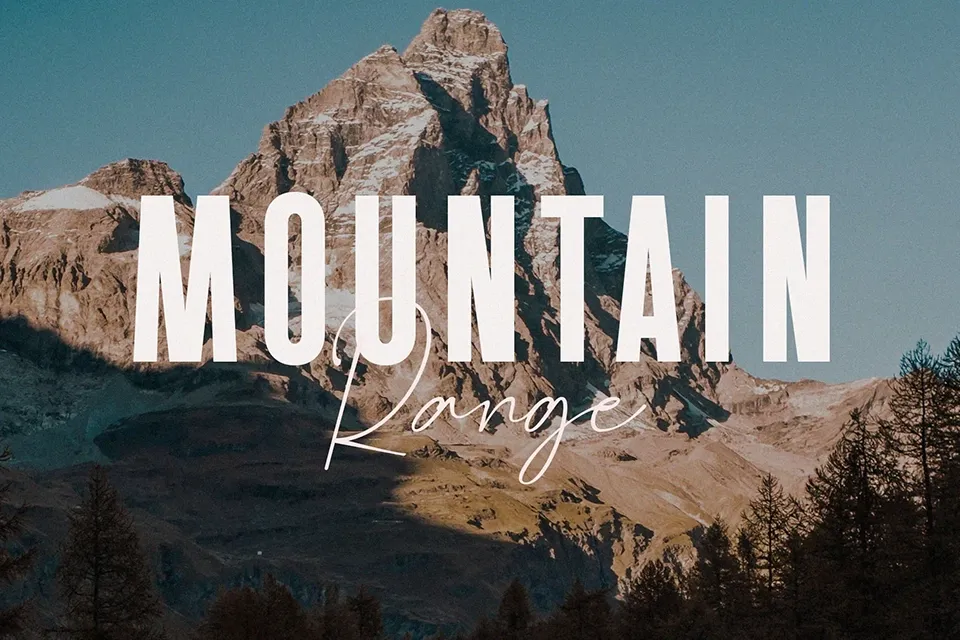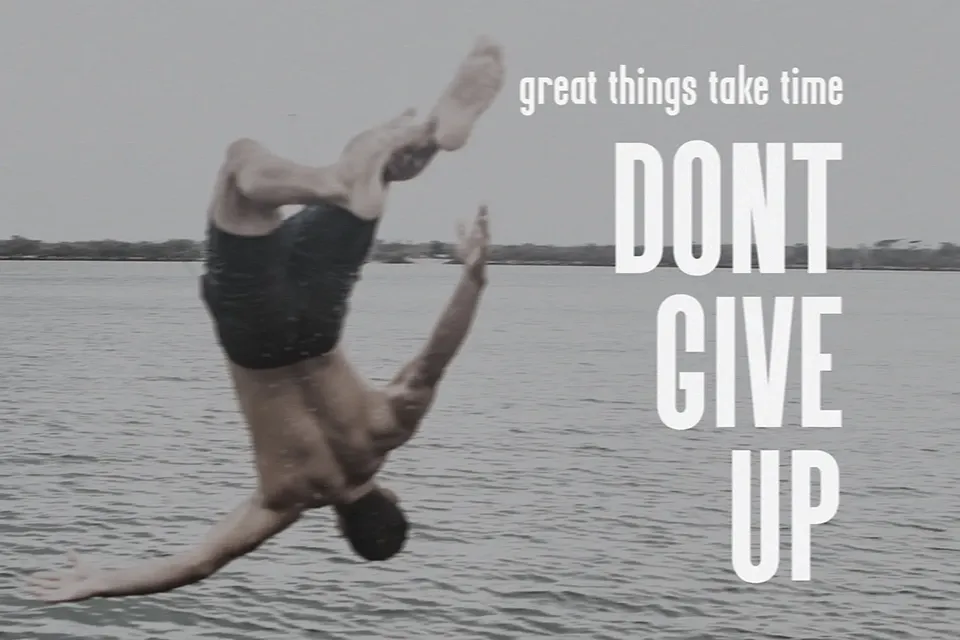
Brownland Font
Brownland is a striking modern condensed typeface designed to make a bold statement. With its tall, narrow letterforms and clean lines, Brownland delivers a powerful visual impact that is perfect for headlines, posters, branding, and editorial design. The font’s contemporary style ensures excellent readability while maintaining a strong, confident presence on any layout. Its versatility allows it to adapt seamlessly to both digital and print projects, making it an ideal choice for designers seeking a modern, professional look. Brownland’s unique character and stylish appearance set it apart, making every message stand out with clarity and sophistication.